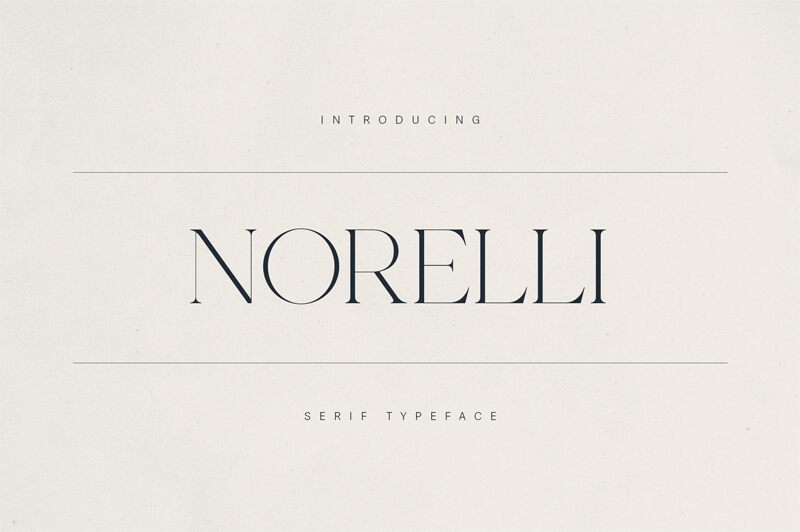
Norelli Demo Black
Norelli Black font by VPcreativeshop is a free serif font that feels like it stepped straight out of a glossy magazine spread. Thick, inky strokes snap into razor-fine joints, giving each letter a sculpted, editorial presence. The Norelli family’s curves stay smooth and poised while the verticals stay firm, so even a single word set large looks luxurious and intentional.
Using Norelli Black, headlines gain that fashion-house confidence that’s hard to fake. This free typeface shines on brand identities, packaging, book covers, posters, social graphics, and hero website typography where you want drama with polish. Keep it big to show off its contrast, and pair it with a clean, understated sans serif in smaller text to let Norelli do the talking.